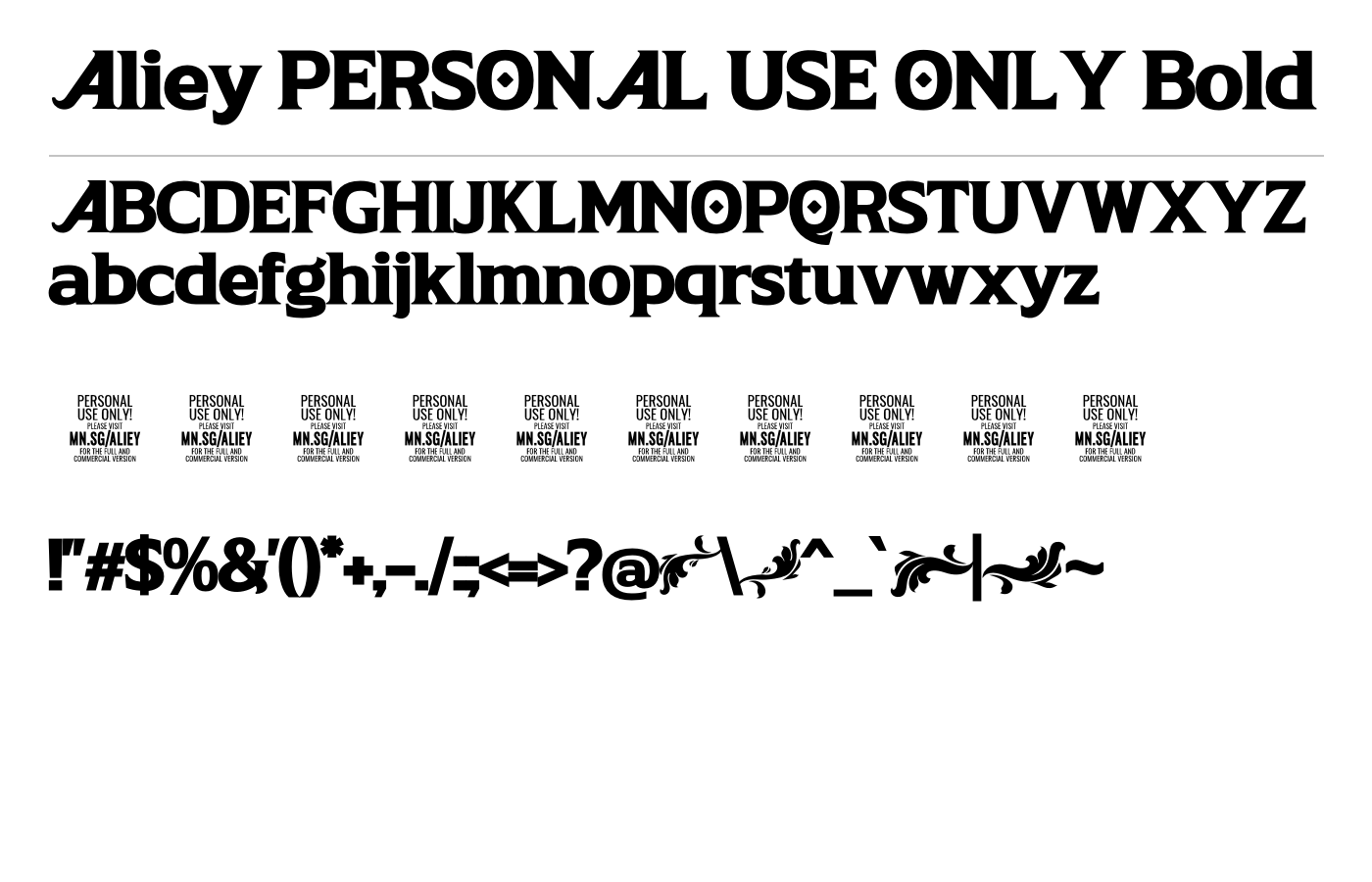
Aliey is a bold serif font with a strong presence and unique decorative details that give it personality and flair. Its sturdy, medium-contrast strokes and slightly condensed forms make it ideal for eye-catching headlines and branding that seeks a blend of classic sophistication and playful originality. This font works well for fashion, editorial projects, and any design needing a confident yet distinctive style.
Aliey PERSONAL USE ONLY Font
About Aliey PERSONAL USE ONLY Font